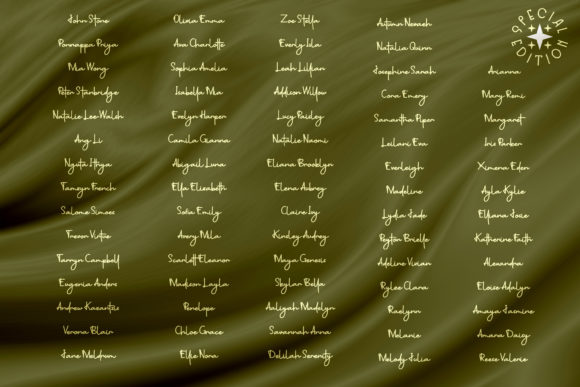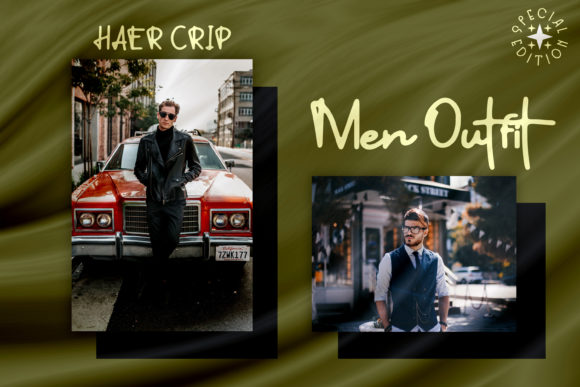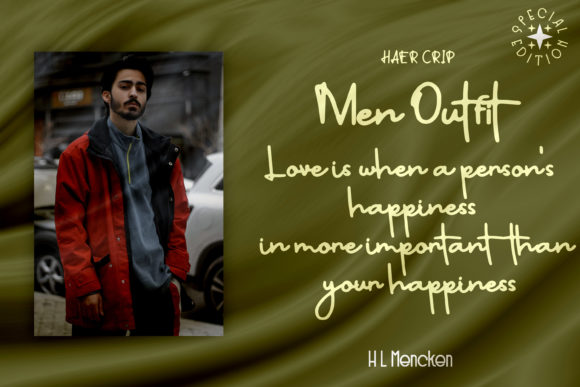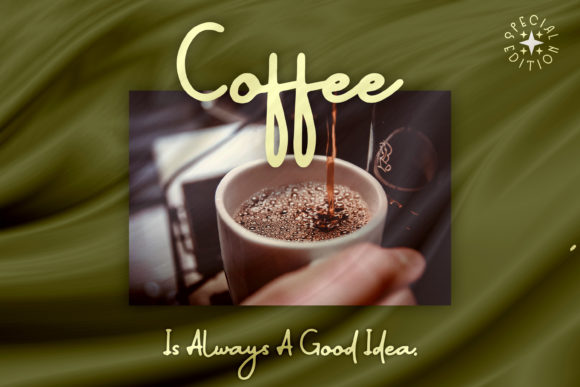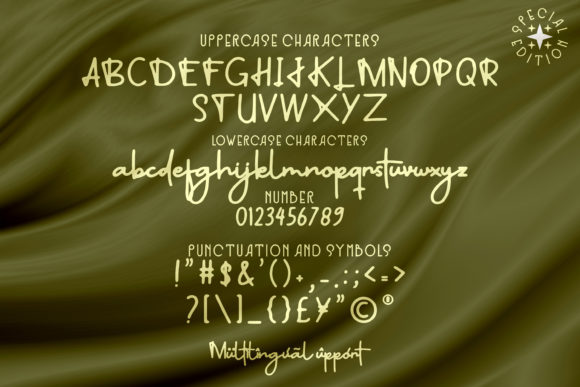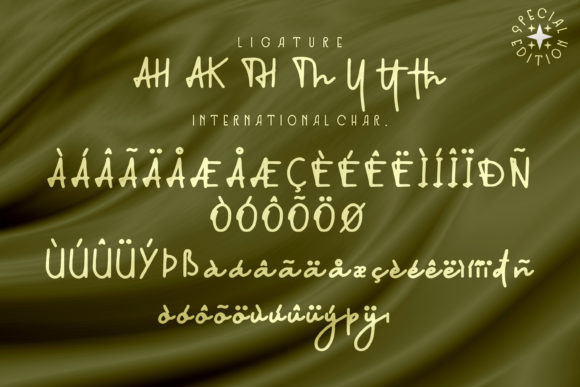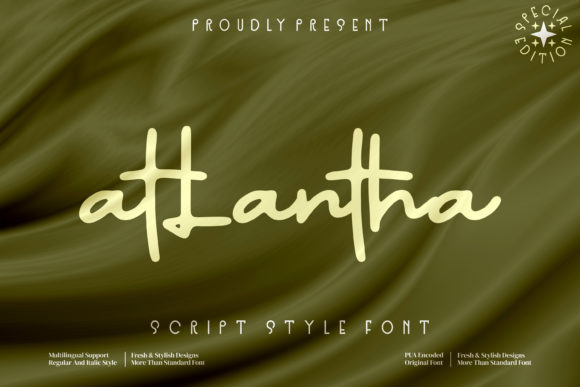
Introducing Atlantha Font: Elevate Your Designs with Elegance and Sophistication
In the world of design, fonts play a crucial role in conveying the tone and personality of a project. Whether you’re working on a logo, branding project, or product packaging, the right font can make all the difference. If you’re looking for a stylish script font that exudes luxury and sophistication, look no further than Atlantha Font. In this article, we’ll explore the features and benefits of Atlantha Font, and how it can elevate your designs to the next level.
What is Atlantha Font?
Atlantha Font is a beautiful script font designed to add a touch of elegance and refinement to any project. Its flowing lines and curves make it perfect for designs that require a sophisticated and luxurious feel. With its unique and distinctive style, Atlantha Font is sure to make your designs stand out from the crowd.
Features of Atlantha Font
So, what makes Atlantha Font so special? Here are just a few of its key features:
• Stylish Script Font: Atlantha Font is a script font that is both stylish and elegant, making it perfect for designs that require a touch of sophistication.
• Highly Versatile: Atlantha Font is suitable for a wide range of projects, including logos, branding projects, homeware designs, product packaging, and more.
• Easy to Read: Despite its ornate style, Atlantha Font is easy to read, making it perfect for designs that require a clear and concise message.
• Scalable: Atlantha Font is highly scalable, making it perfect for designs that require a font that can be used in a variety of sizes.
Uses of Atlantha Font
Atlantha Font is a highly versatile font that can be used for a wide range of projects, including:
• Logos and Branding Projects: Atlantha Font is perfect for logos and branding projects that require a sophisticated and luxurious feel.
• Homeware Designs: Add a touch of elegance to your homeware designs with Atlantha Font.
• Product Packaging: Make your product packaging stand out with Atlantha Font.
• Mugs and Apparel: Atlantha Font is perfect for designing mugs, t-shirts, and other apparel.
• Posters and Flyers: Add a touch of sophistication to your posters and flyers with Atlantha Font.
• Invitations and Greeting Cards: Atlantha Font is perfect for designing invitations, greeting cards, and other special occasion cards.
Benefits of Using Atlantha Font
So, why should you choose Atlantha Font for your next project? Here are just a few benefits of using this stylish script font:
• Adds a Touch of Elegance: Atlantha Font adds a touch of elegance and sophistication to any design.
• Highly Versatile: Atlantha Font can be used for a wide range of projects, making it a great addition to any designer’s toolkit.
• Easy to Read: Despite its ornate style, Atlantha Font is easy to read, making it perfect for designs that require a clear and concise message.
• Unique and Distinctive: Atlantha Font is a unique and distinctive font that will make your designs stand out from the crowd.
Font Name Atlantha Font
Author mahstudios
In conclusion, Atlantha Font is a stylish script font that is perfect for designers and crafters looking to add a touch of elegance and sophistication to their projects. With its highly versatile design, ease of use, and unique style, Atlantha Font is sure to become a favorite in your design toolkit. Whether you’re working on a logo, branding project, or product packaging, Atlantha Font is the perfect choice for any design that requires a premium signature taste.